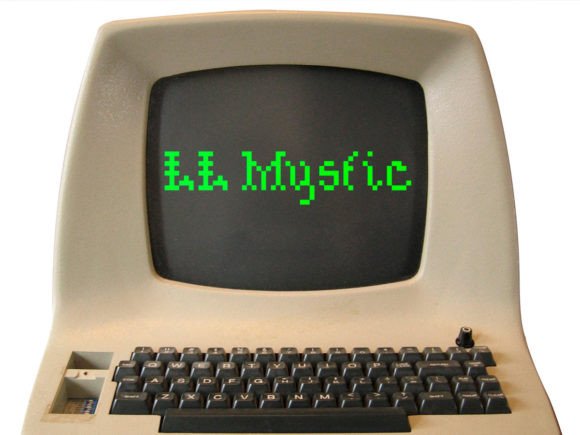
Introducing LL Mystic Font: The Ultimate Retro Charm for Your Designs
In the world of typography, fonts play a crucial role in conveying the tone and aesthetic of a design. With the vast array of fonts available, it can be challenging to find the perfect one that captures the essence of your project. However, if you’re looking to add a retro charm to your designs, look no further than the LL Mystic Font. This fun, pixel-based font is reminiscent of video games from years past and is sure to bring a nostalgic feel to your work.
What is LL Mystic Font?
LL Mystic Font is a unique, pixel-based font that is designed to evoke the nostalgia of classic video games. With its blocky, 8-bit-inspired letters and numbers, this font is perfect for creating designs that require a retro aesthetic. Whether you’re working on a project that requires a fun, playful vibe or a bold, eye-catching statement, LL Mystic Font is the ideal choice.
Key Features of LL Mystic Font
• Pixel-based design: LL Mystic Font features a pixel-based design that is reminiscent of old-school video games.
• Retro charm: This font is designed to bring a retro charm to your designs, making it perfect for projects that require a nostalgic feel.
• Fun and playful: LL Mystic Font has a fun and playful vibe that is sure to add a touch of personality to your designs.
• 8-bit-inspired: The font’s blocky, 8-bit-inspired letters and numbers are sure to transport you back to the good old days of video games.
• Easy to read: Despite its pixel-based design, LL Mystic Font is easy to read, making it perfect for use in a variety of design projects.
How to Use LL Mystic Font in Your Designs
LL Mystic Font is a versatile font that can be used in a variety of design projects, from digital to print. Here are some ideas on how to use this font in your designs:
• Video game-inspired designs: Use LL Mystic Font to create designs that are inspired by classic video games, such as posters, logos, and icons.
• Retro-themed designs: Add a retro touch to your designs with LL Mystic Font, perfect for projects that require a nostalgic feel, such as advertisements, flyers, and brochures.
• Digital designs: Use LL Mystic Font in digital designs, such as social media graphics, website headers, and mobile app icons.
• Print designs: LL Mystic Font can also be used in print designs, such as t-shirts, stickers, and posters.
Benefits of Using LL Mystic Font
Using LL Mystic Font in your designs comes with a range of benefits, including:
• Instant recognition: The retro charm of LL Mystic Font is sure to grab attention and create instant recognition.
• Unique aesthetic: This font’s pixel-based design and 8-bit-inspired letters and numbers create a unique aesthetic that sets it apart from other fonts.
• Versatile: This font can be used in a variety of design projects, from digital to print.
Tips and Tricks for Using LL Mystic Font
Here are some tips and tricks for using LL Mystic Font in your designs:
• Use it sparingly: While LL Mystic Font is a fun and playful font, it can be overwhelming if used excessively. Use it sparingly to create impact.
• Pair it with other fonts: Experiment with pairing LL Mystic Font with other fonts to create a unique and visually appealing design.
• Adjust the size: Adjust the size of LL Mystic Font to create visual hierarchy and add emphasis to certain elements.
• Experiment with colors: LL Mystic Font looks great in bright, bold colors. Experiment with different colors to create a design that pops.
LL Mystic Font is a unique and fun font that is perfect for adding a retro charm to your designs. With its pixel-based design and 8-bit-inspired letters and numbers, this font is sure to bring a nostalgic feel to your work. Whether you’re working on a video game-inspired design or a retro-themed project, LL Mystic Font is the ideal choice. So why not give it a try and see how it can elevate your designs?